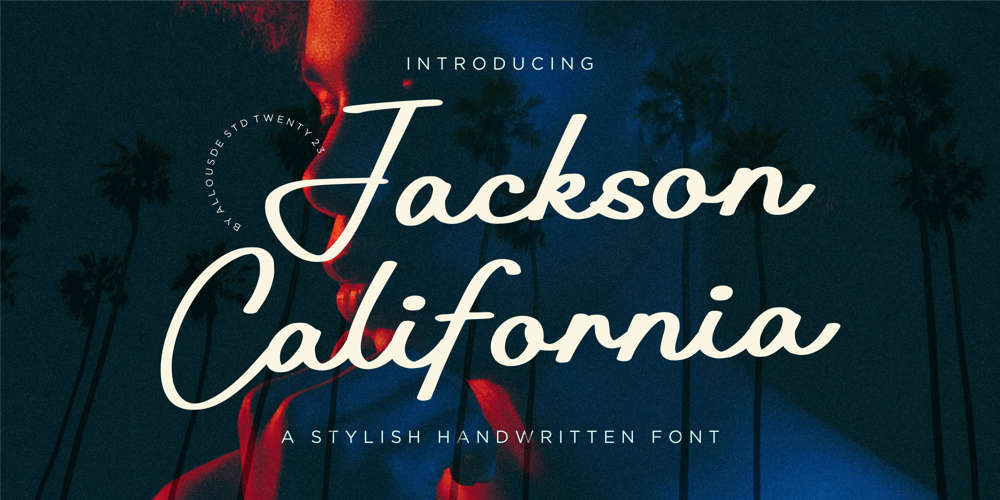
Jackson California Font Family was designed by Fachrizal Yusuf and published by Allouse Studio. Jackson California contains 1 styles and family package options. Proudly Presenting, Jackson California A Fancy Script Font.Jackson California is perfect for any titles, logo, product packaging, branding project, megazine, social media, wedding, or just used to express words above the background.Jackson California also come with Multi-Lingual Support.Enjoy the font, feel free to comment or feedback, send me PM or email. Thank You!